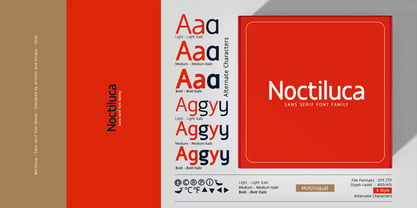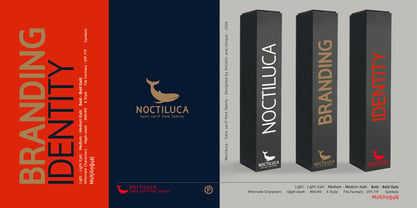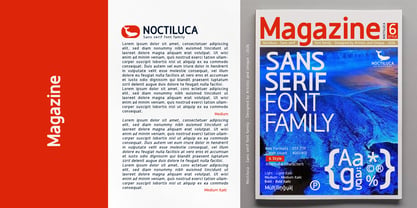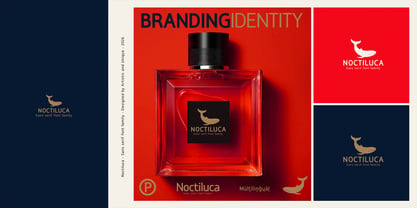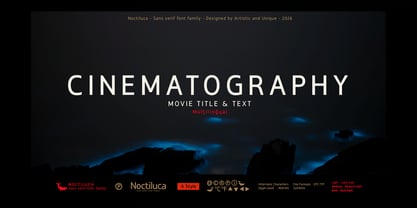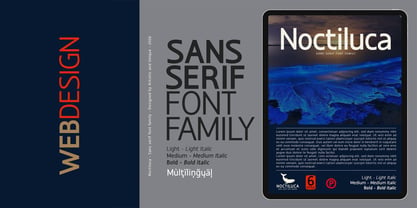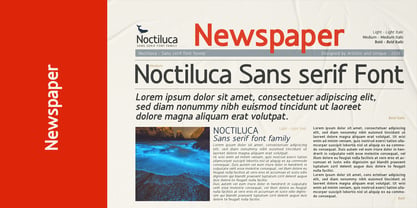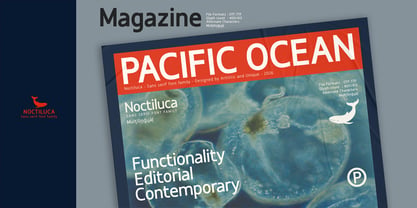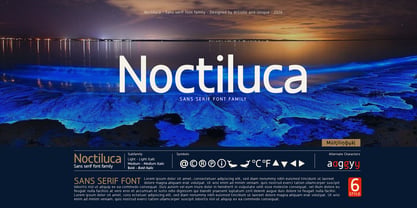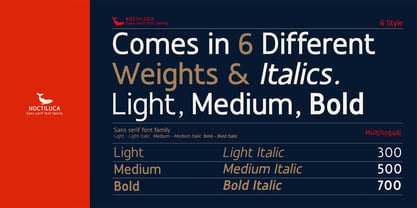
Noctiluca
The Noctiluca Font Family was designed by Osman Taner Kucukgenc and published by Artisticandunique. Noctiluca contains 6 styles and family package options. More about this family
Noctiluca - Sans Serif Font Family - 6 Styles - Multilingual Support. This family features six distinct styles offering consistent, high readability and elegance across a variety of creative projects. Its clean look and modern structure make it ideal for logo and branding. Multilingual support further enhances flexibility; lighter tones provide an elegant visual appearance, while darker tones stand out with consistent and strong emphasis in headlines. Noctiluca is a comprehensive sans serif font family offering a refined solution for designers seeking to enhance their visual toolsets. Its structural anatomy integrates seamlessly into both digital and print projects while providing a timeless and innovative look. Features: * Multilingual support, * 6 different styles, * Style alternatives, * Rich glyph options (413), * Perfect for branding and editorial design, * Suitable for web and logo design, * Alternative characters and additional symbols. Whether you're editorial, designing book, magazine, newspaper, packaging, film titles and content, branding, branding identity, website or logo design, the Noctiluca font family offers a harmonious blend of aesthetics for your modern and innovative needs. Enjoy.